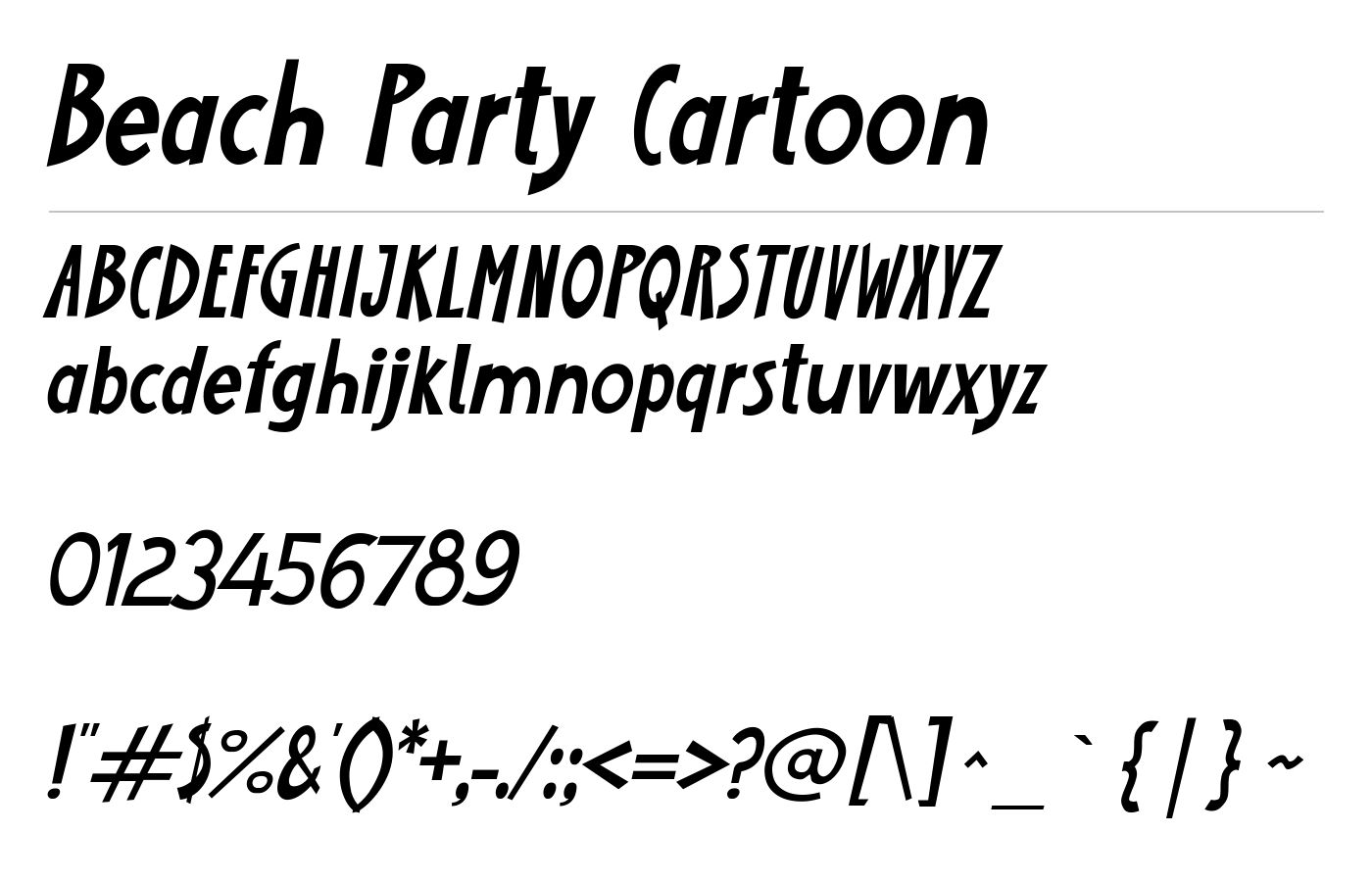
Beach Party Cartoon is a playful, slanted sans serif font with a lively and whimsical flair, featuring slightly condensed letterforms and a smooth, flowing stroke style. Its uneven, quirky shapes and italicized slant make it perfect for fun, informal designs like party invitations, children’s books, or casual branding that aims to convey energy and friendliness. This font works best in headlines and display uses where a lighthearted, animated personality is desired.
Beach Party Cartoon Font
About Beach Party Cartoon Font